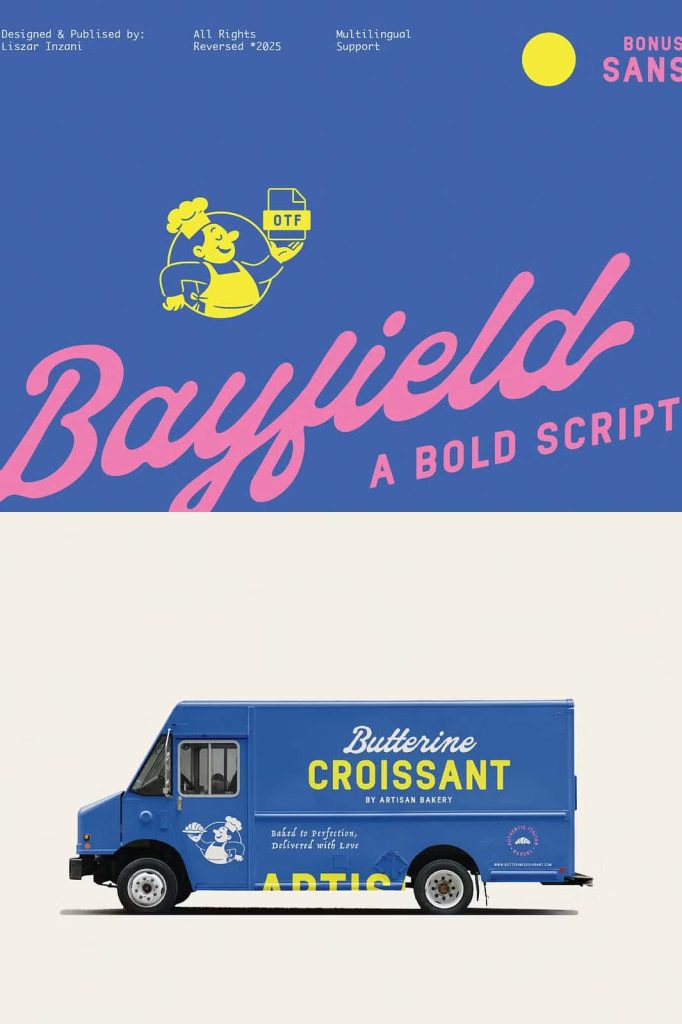
Bayfield – Fun & Bold Script Font Duo with Retro Charm
Bayfield is a fun and bold script font duo that brings energy, creativity, and personality to every design. Combining a lively handwritten script with a clean and versatile sans serif companion, Bayfield gives designers everything they need to create eye-catching typography with ease. Inspired by cheerful retro aesthetics and modern branding trends, this font duo delivers a perfect balance between playful expression and professional versatility.
Whether you’re designing a memorable logo, attractive product packaging, vintage-inspired posters, or engaging social media graphics, Bayfield helps your typography stand out with confidence. Its flowing script creates warmth and movement, while the accompanying sans serif adds structure and readability. Together, they form a dynamic combination that works beautifully across both print and digital projects.
A Perfect Combination of Script and Sans Serif
Bayfield pairs two complementary font styles that work seamlessly together. The bold script features smooth curves, flowing strokes, and expressive letterforms that instantly grab attention. Its handcrafted appearance creates an inviting and authentic feel, making every word appear lively and full of personality.
The accompanying sans serif balances the expressive script with clean lines and modern simplicity. Use it for supporting text, taglines, product details, or secondary headlines while allowing the script font to shine as the main focal point. This combination helps designers build visually balanced layouts without needing additional typefaces.
Inspired by Cheerful Retro Design
Bayfield embraces the charm of retro typography while maintaining the flexibility needed for contemporary design. Its playful letterforms evoke the warmth of vintage signs, classic advertisements, nostalgic packaging, and hand-painted storefronts. At the same time, the clean construction ensures your designs remain fresh, polished, and suitable for modern audiences.
This blend of retro inspiration and modern usability makes Bayfield an excellent choice for projects that require both character and professionalism.
Create Memorable Branding
Strong typography plays an important role in building recognizable brands, and Bayfield helps businesses create visual identities that customers remember. The expressive script adds friendliness and emotion, while the sans serif reinforces clarity and consistency throughout your branding materials.
Logo Design
Create distinctive logos with handcrafted personality. Bayfield’s bold script works beautifully for boutique brands, cafés, bakeries, clothing labels, beauty products, creative agencies, and lifestyle businesses looking for a welcoming and stylish identity.
Packaging Design
Design premium product packaging that attracts attention on store shelves. Bayfield adds warmth and individuality to labels, boxes, jars, coffee bags, cosmetics, candles, artisan goods, and specialty food packaging.
Marketing and Advertising
Produce engaging advertisements, promotional graphics, flyers, banners, brochures, and digital campaigns with typography that feels energetic and approachable. Bayfield helps communicate your message clearly while creating a memorable visual impact.
Ideal for Print and Digital Projects
Bayfield performs exceptionally well across numerous creative applications. Whether your work appears in print or on screen, the font duo maintains excellent readability and visual appeal.
Use Bayfield for:
- Brand identities
- Logos and wordmarks
- Product packaging
- Posters and flyers
- Greeting cards
- Invitations
- Restaurant menus
- Café branding
- Editorial headlines
- Magazine covers
- Website headers
- YouTube thumbnails
- Email campaigns
- Merchandise and apparel
- Sticker designs
- Event promotions
- Creative presentations
Why Designers Love Bayfield
Bayfield offers the flexibility of two perfectly matched typefaces in one collection. Instead of searching for fonts that complement each other, designers can confidently use both styles together to build cohesive layouts. The bold script naturally draws attention, while the clean sans serif supports the overall composition without competing for focus.
This versatility allows Bayfield to adapt to a wide range of industries, including fashion, food, beverages, hospitality, beauty, travel, retail, handmade products, and creative businesses.
Features of Bayfield Script Font Duo
- Bold and expressive handwritten script font
- Clean and modern sans serif companion
- Playful retro-inspired design
- Smooth flowing letterforms with handcrafted appeal
- Excellent for branding and logo creation
- Perfect for packaging and product labels
- Suitable for posters, flyers, and advertisements
- Works beautifully for print and digital media
Add Joy and Personality to Every Design
Bayfield is more than just a font duo—it is a creative toolkit designed to help your typography communicate warmth, confidence, and individuality. Its cheerful script and versatile sans serif work together to produce designs that feel both nostalgic and contemporary. Whether you’re building a memorable brand, designing attractive packaging, promoting an event, or creating engaging online content, Bayfield gives your projects the playful retro touch and professional quality needed to leave a lasting impression.